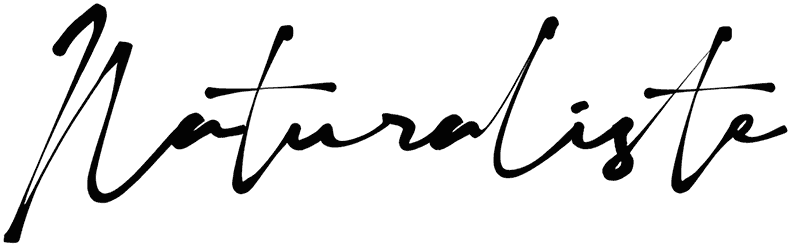
Naturaliste Font
You’re going to kiss the legibility of your text goodbye when you choose a casual and cursive font like Naturaliste. It’s the perfect display of handwritten letters, as you can even see the flow of ink, getting thin and thick at all the right places to capture everything most realistically.
Sorry to let you know that you can’t count on this signature font for the numbers. Nonetheless, it’ll be really good at handling any project of yours requiring a signature.